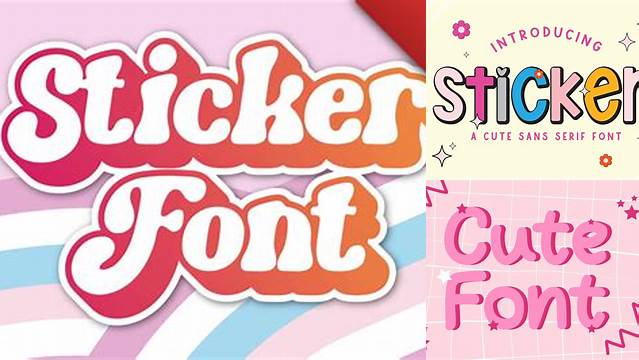
Hey everyone! Ever wanted to jazz up your projects with some super cute fonts, especially those that look like adorable stickers? Well, you're in luck! This guide is all about the cute sticker font generator, a fantastic tool that lets you create text that's playful, eye-catching, and perfect for adding a touch of whimsy to anything you're working on. From social media posts and personalized cards to printable crafts and digital art, a cute sticker font can transform your designs from bland to brilliant. We'll dive into what makes these fonts so special, how to find and use the best generators, and some awesome ideas to get your creative juices flowing. So, grab a seat, and let's get started on this fun typography journey!
What Makes a Font "Cute" and Sticker-Worthy?
So, what exactly defines a font as "cute"? And what characteristics make it sticker-worthy? Think about it – it's more than just a pretty face, right? Several key elements come into play. First off, we're looking at visual appeal. Cute fonts often have rounded edges, bubbly shapes, and a friendly, approachable feel. They're designed to be inviting and make you smile! Think about the fonts you see on children's products, greeting cards, or even those adorable labels on your favorite snacks – those are the fonts we're talking about. The design often incorporates a playful style that is approachable and friendly.
Next up: the sticker factor. Fonts perfect for stickers often mimic the look of hand-drawn lettering or have a slightly imperfect, textured quality. This gives them an authentic, handcrafted feel that's super popular. They might include elements like slight variations in stroke width, little embellishments, or even a subtle shadow to give a 3D effect – all these details contribute to the impression that the font could be a physical sticker ready to be peeled and stuck somewhere. Sometimes these fonts look like the lettering on a real sticker. This creates the illusion that they're ready to peel and stick.
Furthermore, these fonts are all about personality! The best cute fonts have a unique character. Think of it like this: each font is a character! They have a personality of their own. A playful font might be bouncy and energetic, while a softer font might be gentle and soothing. The versatility of these fonts is really awesome! This is really what it's all about. They're designed to convey a feeling or message in a fun and engaging way. Choosing the right font to convey the message is essential. This is where the font becomes the best fit. Remember that it's all about visual communication. The fonts are designed to be visually appealing and convey the message effectively.
Top Cute Sticker Font Generators You Should Know
Alright, now for the good stuff: Where do you find these magical cute sticker font generators? Fortunately, there are loads of awesome options out there, both free and paid. The best part is, you don't need to be a typography expert to use them. Many of these generators are user-friendly and intuitive, which makes it easier than ever for you to produce the fonts you want! Here are a few of the top picks, along with a little about what makes each one special.
Canva Font Generator: Canva is a design platform that's super popular, and for good reason! It has a really simple font generator tool that lets you try out different fonts and see how they look in a design. This platform offers a wide range of styles, including tons of cute options perfect for stickers. It’s really easy to use, even if you’re a total beginner. You can experiment with different color combinations and text effects to get the exact look you want. Canva is amazing for creating social media graphics, presentations, and even marketing materials.
FontSpace: FontSpace is a fantastic online directory with a vast collection of fonts, including a ton of adorable options. You can easily browse different categories and find fonts that fit your style. FontSpace is ideal if you're searching for something unique or specific. You can often download these fonts for free or at a low cost. This way you can expand your font library! It's a great resource for personal and commercial projects.
DaFont: DaFont is another classic resource for finding fonts. It has a massive library, with many fonts that are perfect for stickers. This site is organized really well. You can filter fonts by style and theme, so it's simple to find what you’re looking for. You'll find something that will work well for your project. DaFont is a go-to spot for designers and hobbyists alike.
Creative Fabrica: Creative Fabrica offers a mix of fonts, graphics, and design assets. It is ideal for getting a complete design solution! You can find a great selection of cute sticker fonts here. They often have amazing deals and bundles. This is a great option if you are looking to expand your design resources. You can get fonts along with graphics. This is a great option for all kinds of creative projects.
When choosing a generator, think about what features you need. Some offer more customization options than others. Other things to consider are the ease of use, licensing, and the overall style of the fonts available. The user interface can vary widely. Some may have more customization options than others. Make sure you know the licensing terms. Make sure you know whether you can use the fonts commercially. Always consider what your project entails. Do your research before picking your font generator. This is a good way to ensure it will be the best fit.
Designing with Cute Sticker Fonts: Tips and Ideas
Conclusion: Unleash Your Inner Font Artist!
So, there you have it, friends! A comprehensive guide to the exciting world of cute sticker font generators. These tools are a fantastic way to spice up your designs, whether you're a seasoned designer or just starting. Remember, finding the right font can make a huge impact on your project. The versatility of these fonts is truly amazing! The power to use different fonts is now in your hands. We've gone over what makes a font "cute", where to find the best generators, and how to use them to create awesome designs. Now, it's time to get out there and start creating! So, start exploring those fonts and enjoy the process. Happy designing, and have fun creating your own sticker-tastic masterpieces!